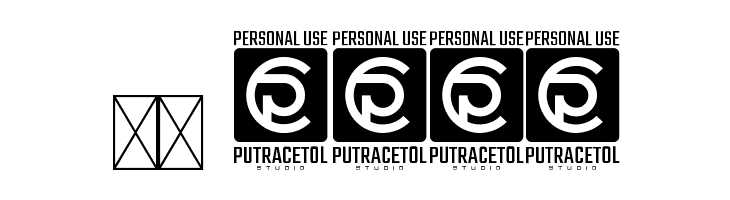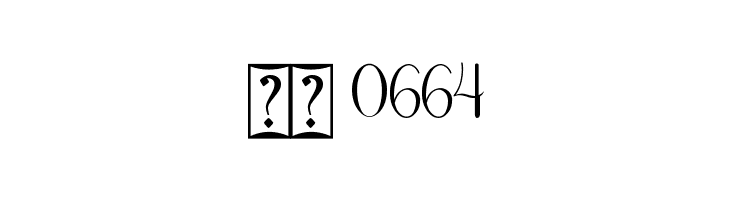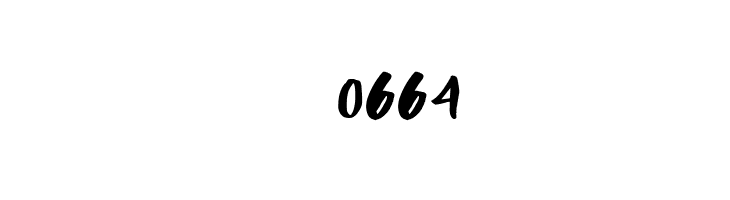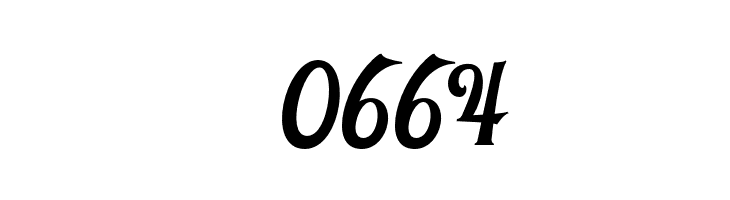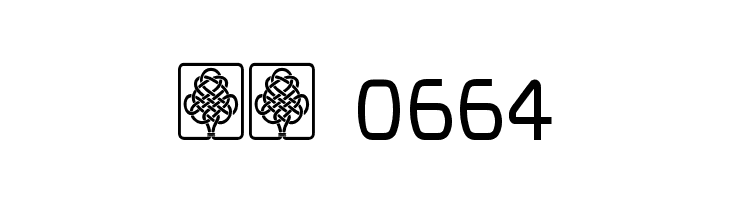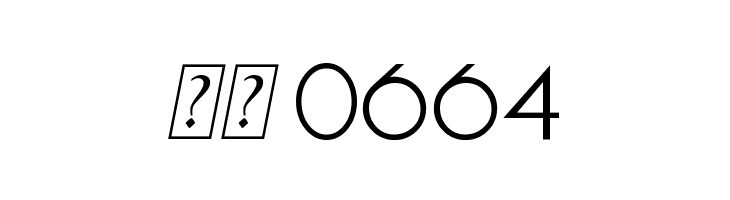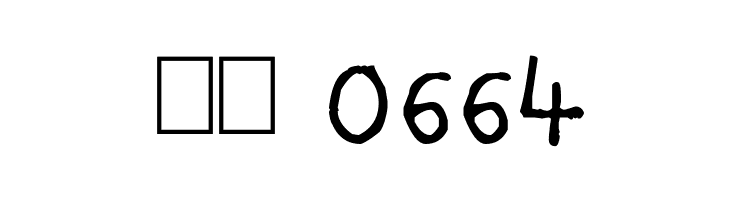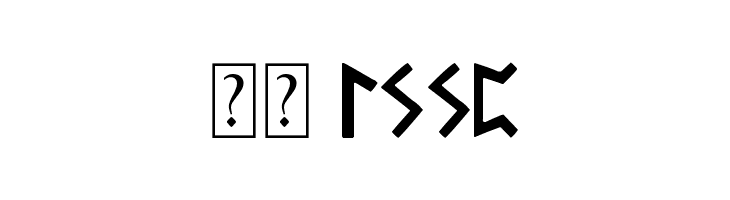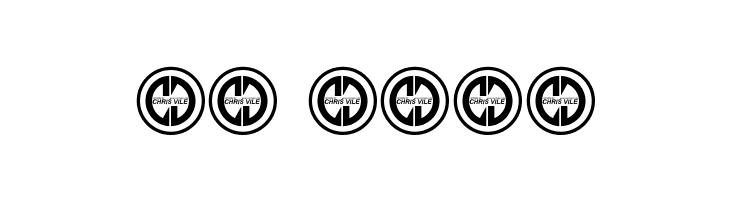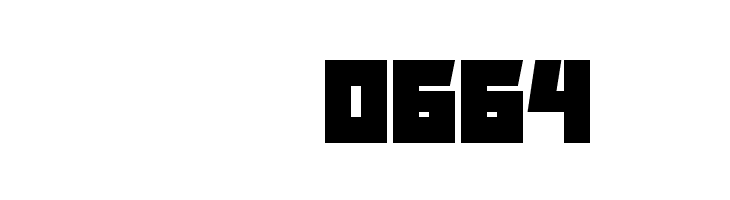
A whimsical handwritten font with fluid, expressive letterforms.
A playful, textured font with a hand-drawn, distressed look.
A bold, angular font inspired by ancient runic alphabets with a modern twist.
An elegant and fluid script font with interconnected letters.
A bold, modern font with geometric structure and high contrast.
A graceful and elegant script font with flowing, interconnected characters.
A vintage cursive script font with bold, flowing strokes.
A bold, distressed industrial font with a vintage aesthetic.
A bold, brush-style font with dynamic, sweeping strokes and artistic flair.
A playful, hand-drawn font with a whimsical and informal style.
An elegant and flowing script font with graceful curves and loops.
A bold slab serif font with strong, block-like serifs and high contrast.
A dot matrix style font with a modern, digital aesthetic.
A bold, distressed font with a cut-out, rebellious style.
A bold, cursive font with a smooth, flowing style.
A bold, textured font with a dynamic, graffiti-like style.
A bold, brush-stroke font with a dynamic and expressive style.
Elegant serif font with high contrast and sharp serifs.
A hand-drawn, expressive font with irregular, organic strokes.
A bold, dynamic script font with elegant, flowing curves and dramatic flourishes.
A bold, dynamic script font with elegant curves and high contrast.
A textured, hand-drawn font with a bold, artistic style.
A sleek, modern font with geometric influences and sharp angles.
A dynamic, graffiti-inspired handwritten font with energetic strokes.
A bold, dynamic font with sharp angles and a decorative style.
An ornate and decorative script font with intricate swirls and flourishes.
A bold, expressive handwritten font with fluid, slanted letterforms.
A whimsical, cursive font with elegant loops and dynamic contrast.